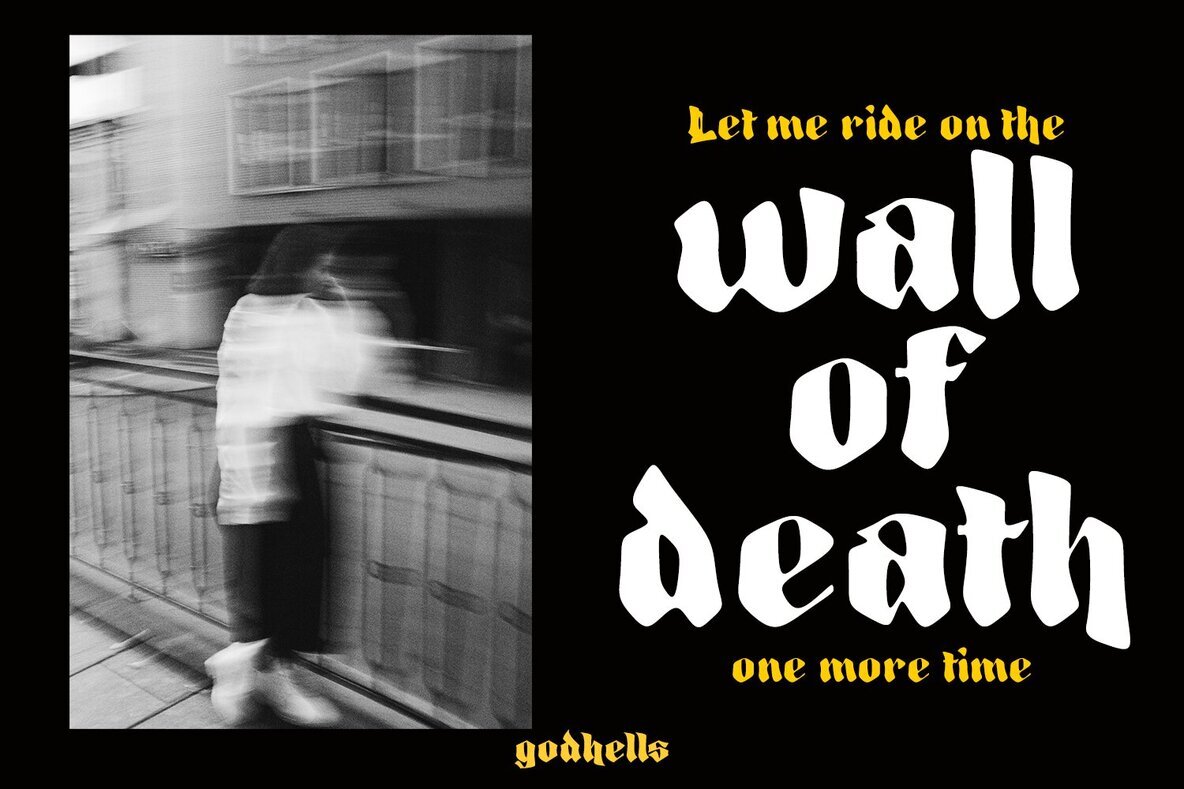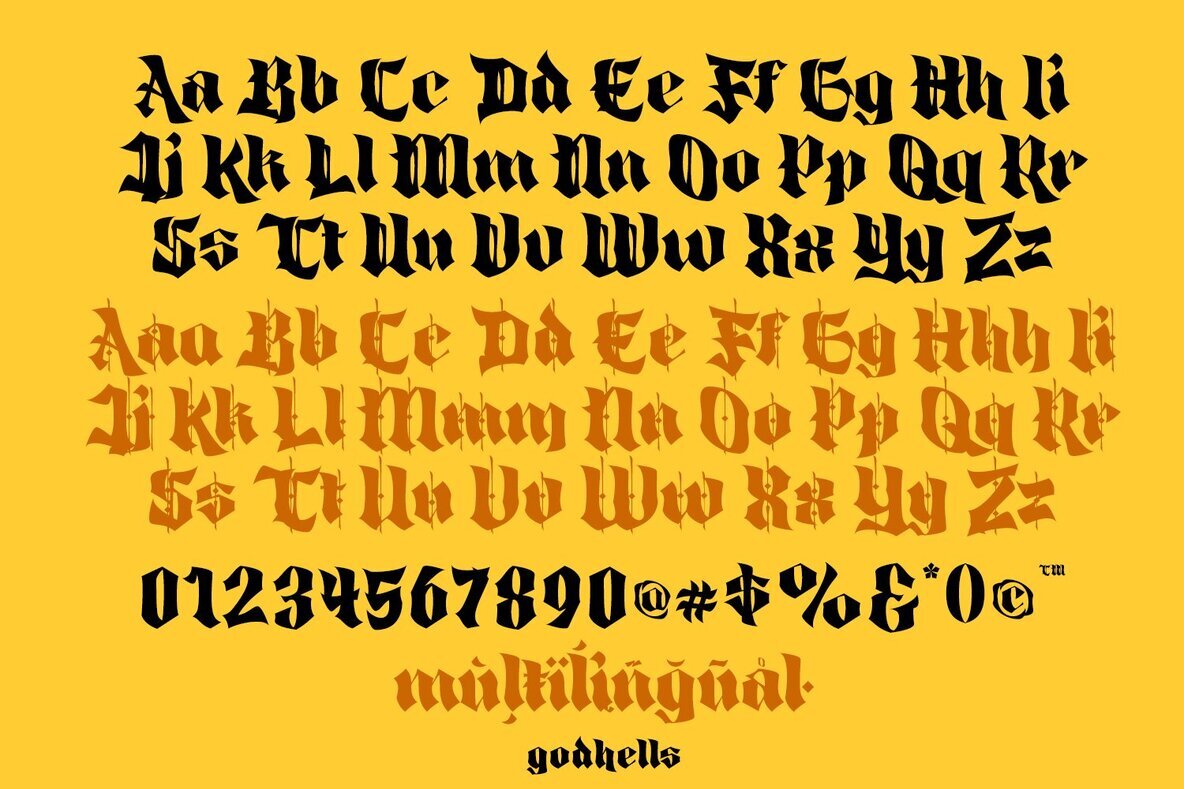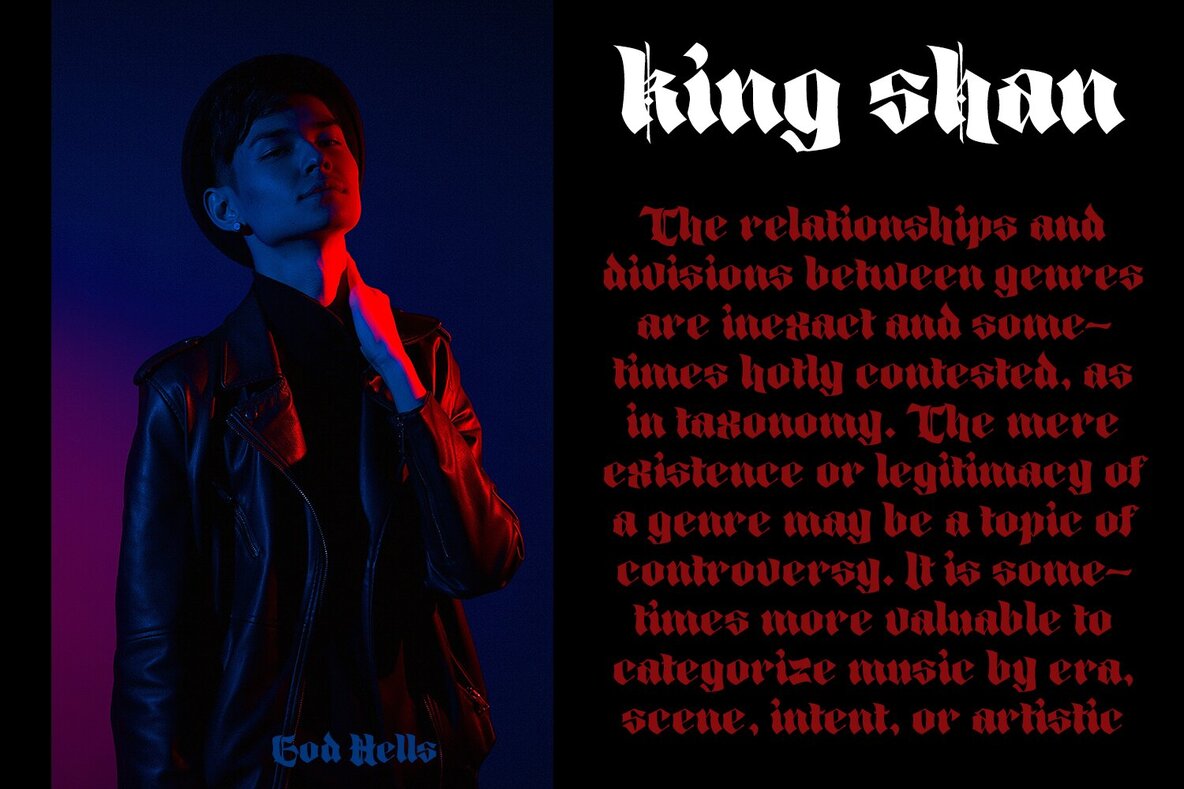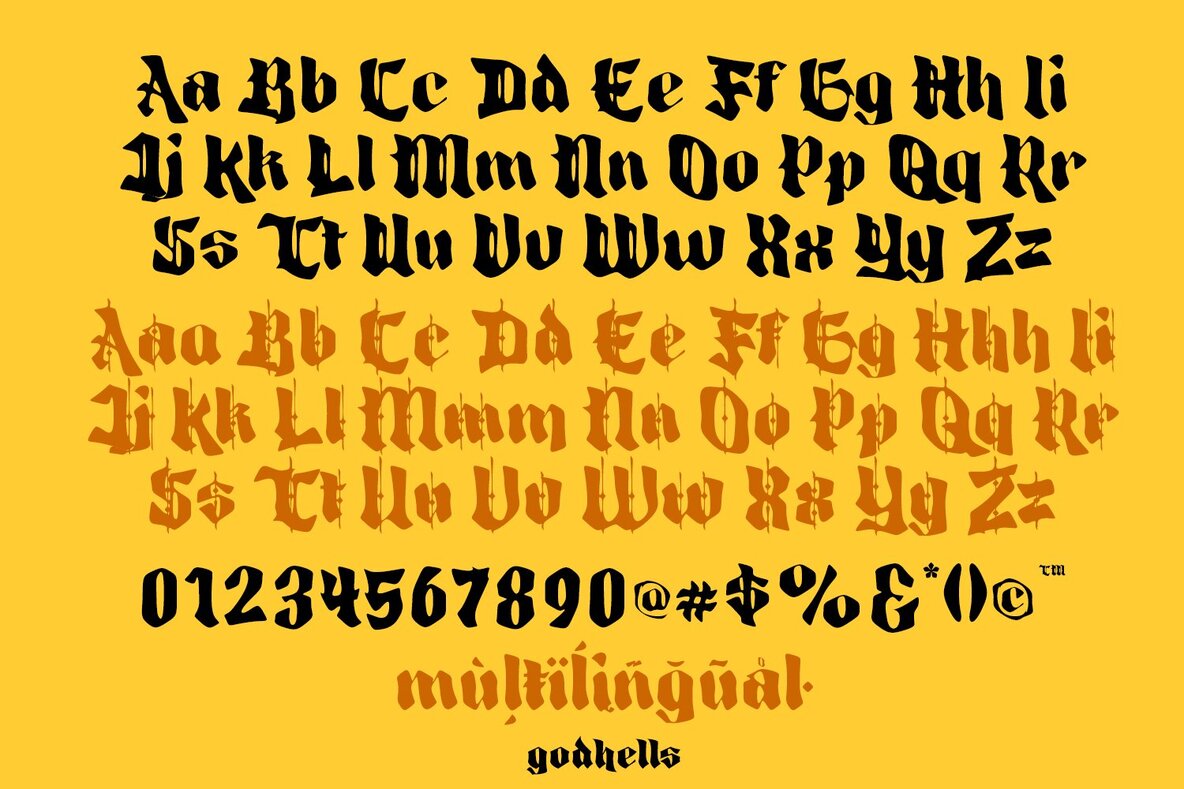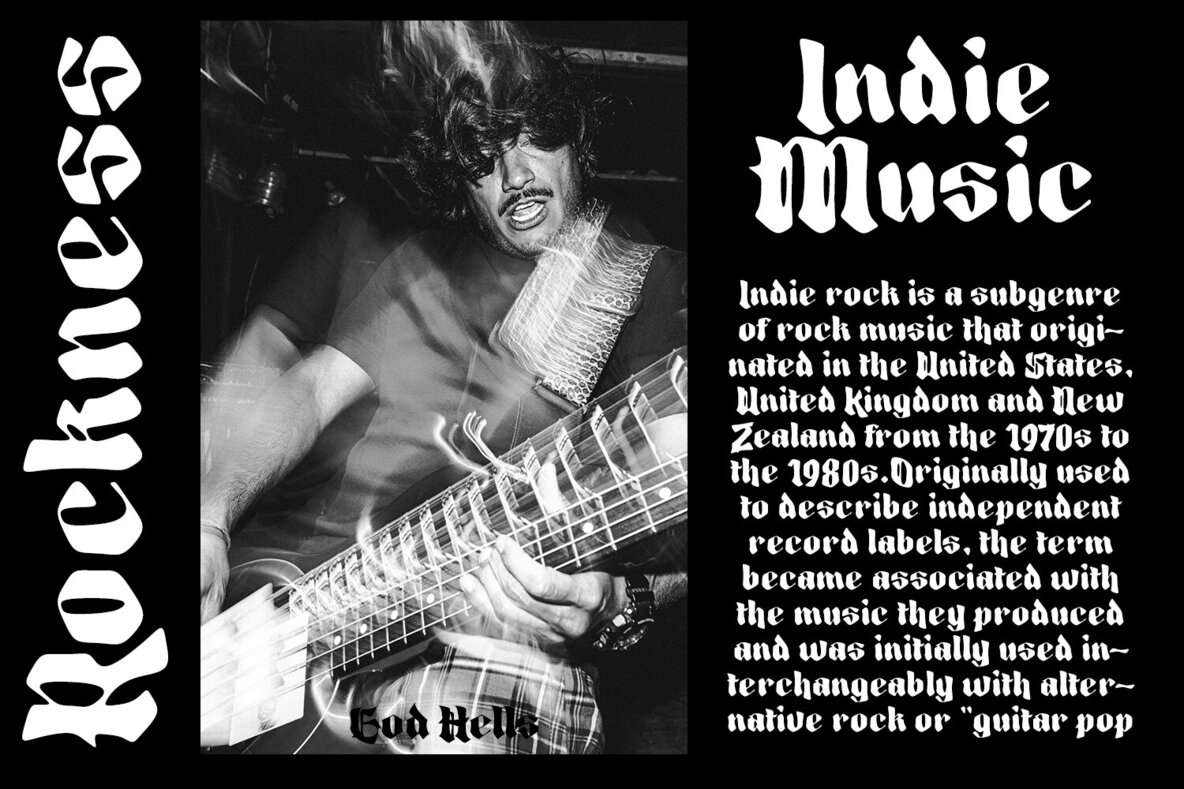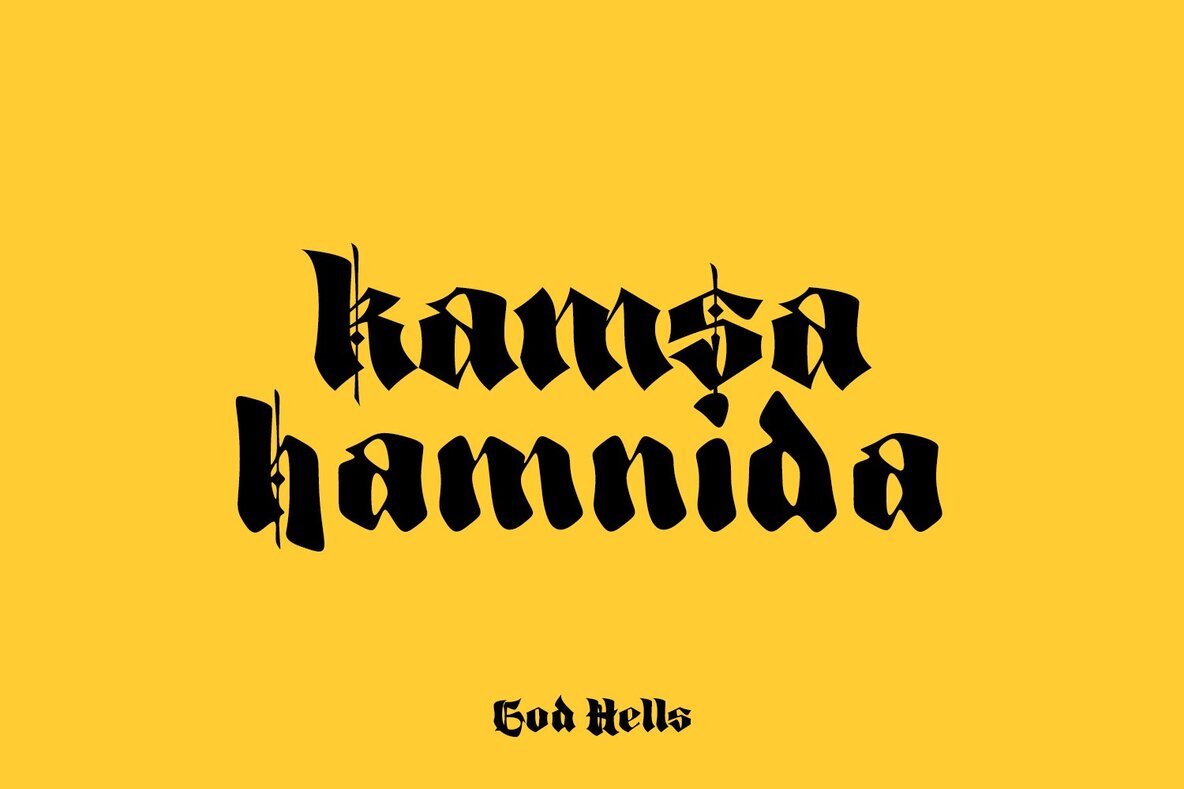
God Hells 1
God Hells: Classic Blackletter with Stylish Flair
God Hells is a distinguished blackletter font that merges classic design with contemporary elegance. Its adaptable nature makes it ideal for an array of creative projects ranging from branding to product packaging. With two distinct styles, it serves as a versatile choice for invitations, quotes, apparel design, labels, posters, and logos.
• Uppercase & Lowercase – Provides a full range of expression.
• Numbers & Symbols – Complete your designs with essential elements.
• International Glyphs – Supports multilingual projects.
• Alternatives & Ligatures – Provides stylistic versatility.